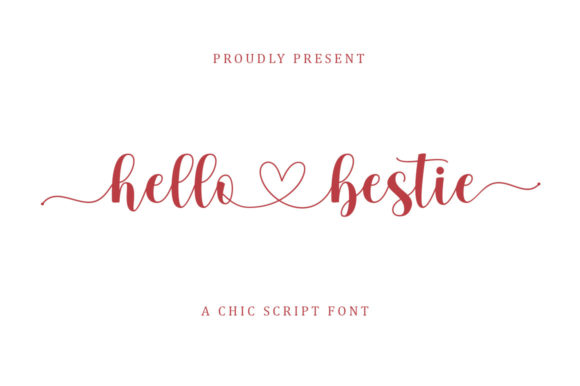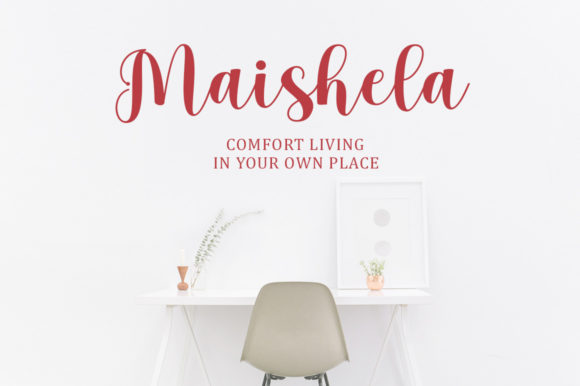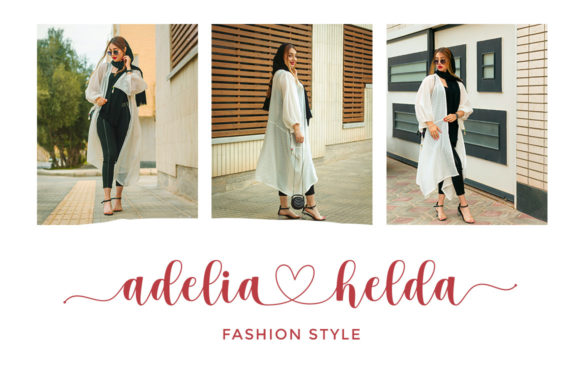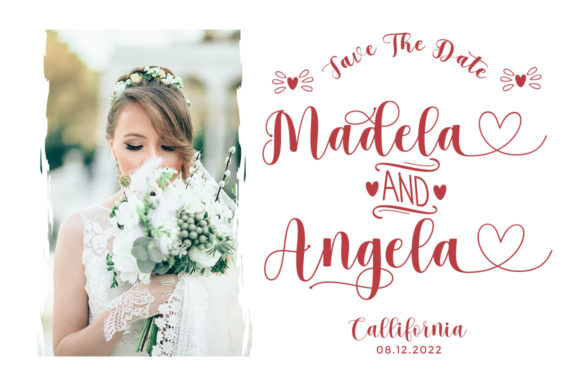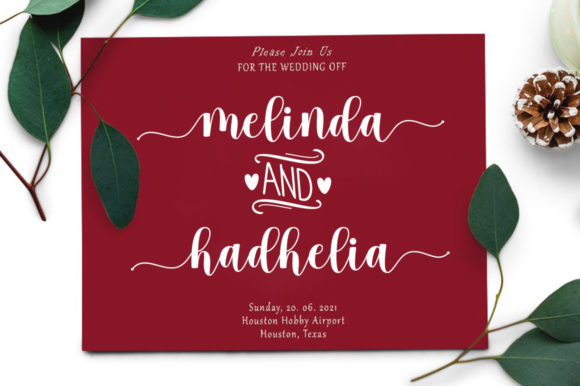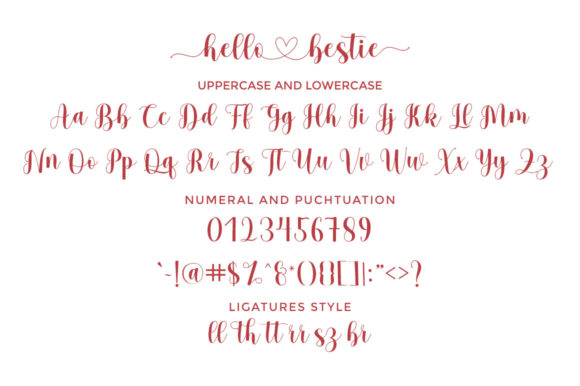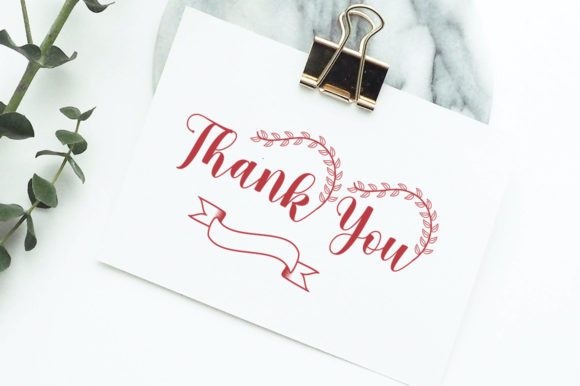
Hello Bestie Font
About Hello Bestie Font
Introducing Hello Bestie, a free-flowing script font crafted for packaging products, invitation cards, flyers, mockups, event posters, and any design that demands high-quality vibes. This font boasts a beautiful and balanced character that seamlessly aligns with a diverse range of design needs. Notably, Hello Bestie is PUA encoded, granting you easy access to all its glyphs and swashes for enhanced creative flexibility.
The free-flowing nature of Hello Bestie lends itself perfectly to projects that require a touch of fluidity and elegance. Picture this font adorning packaging products, adding a distinctive and stylish flair to your brand presentation. Envision it on invitation cards, where its balanced character enhances the overall aesthetic of your special event. Whether applied to flyers, mockups, or event posters, Hello Bestie stands as a versatile choice for elevating your design with high-quality vibes.
With PUA encoding, Hello Bestie ensures that accessing its diverse glyphs and swashes is a seamless process, providing you with a range of creative options to make your designs truly unique.
Embrace Hello Bestie as the script font that brings free-flowing elegance to your projects. Let its balanced character and high-quality vibes become the highlight of your packaging, invitations, flyers, and more. Allow Hello Bestie to be the creative tool that enhances your design pool and delivers exceptional results across various applications.